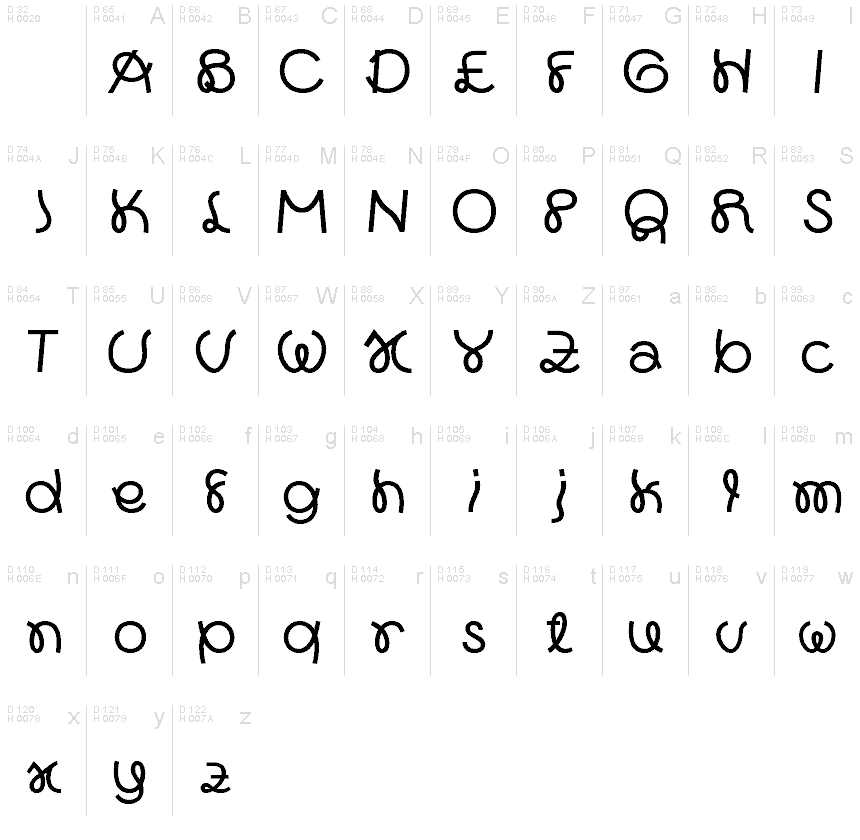
CS Maggie Regular Demo
CS Maggie font by Craft Supply Co. is a modern display handwritten font with a casual tone and organic feel. Letters subtly differ in width along with their imperfections, an effect created intentionally to symbolize human qualities and give the typeface more character. The flow of the letters when used in lowercase gives capital letters more meaning.
Use CS Maggie for designing logo and branding projects where you would like to communicate warmth or friendship. This classic-font family is also suitable for use in children’s book covers, posters, greeting cards, headlines, quotes, invitations, and similar design projects.